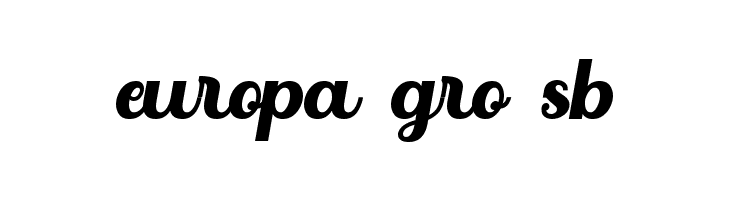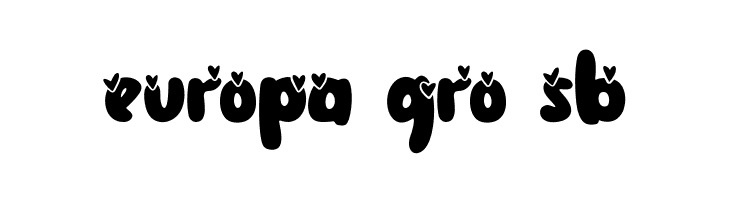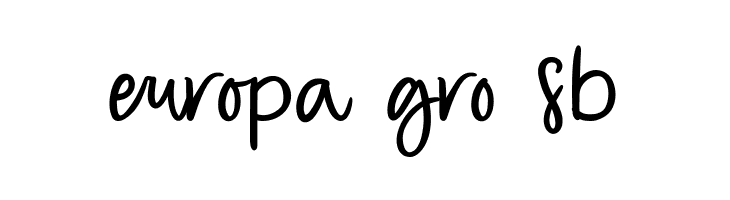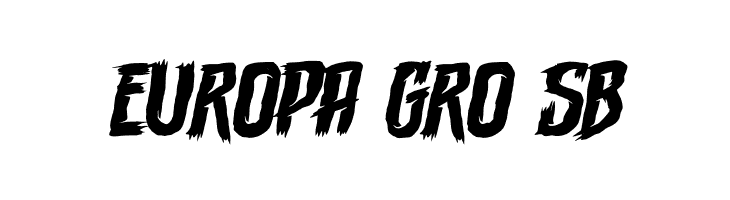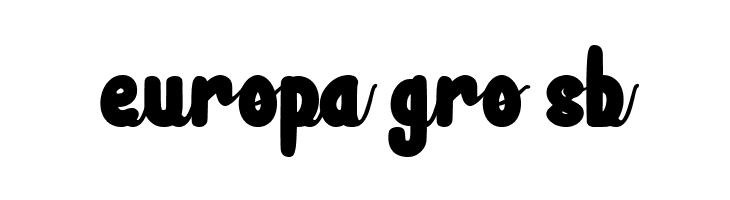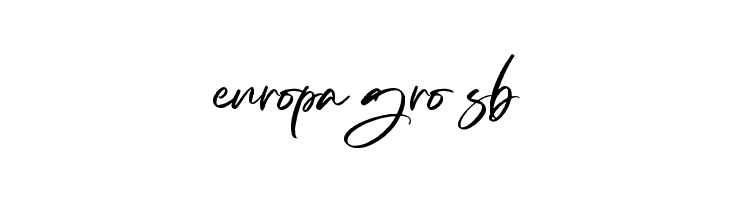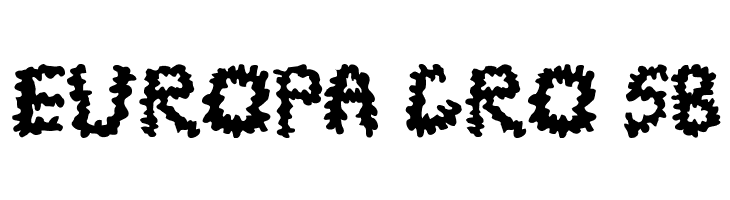
• Terano Regular
A futuristic, geometric font with clean lines and angular shapes.
• Terrasick
A bold, jagged font with a dynamic, brush-like texture.
• TerrorToons
A bold, playful font with jagged, cartoonish horror-inspired characters.
• TerrorToons
A bold, jagged, and playful font with a cartoonish, horror-themed aesthetic.
• Tesalonica Script
A bold, playful script font with rounded strokes and smooth curves.
• The Bellonte
( Fonts by Ibrahima Studio )
A dynamic and fluid handwritten script with elegant, flowing curves.
• The Bugatten
A bold, flowing script font with dynamic and expressive strokes.
• The Coconut love
A bold, heart-adorned decorative font with a playful and romantic style.
• The Golden Roasted
A playful, casual handwritten font with smooth, connected strokes.
• The Heglio
A bold, expressive script font with elegant, flowing letterforms.